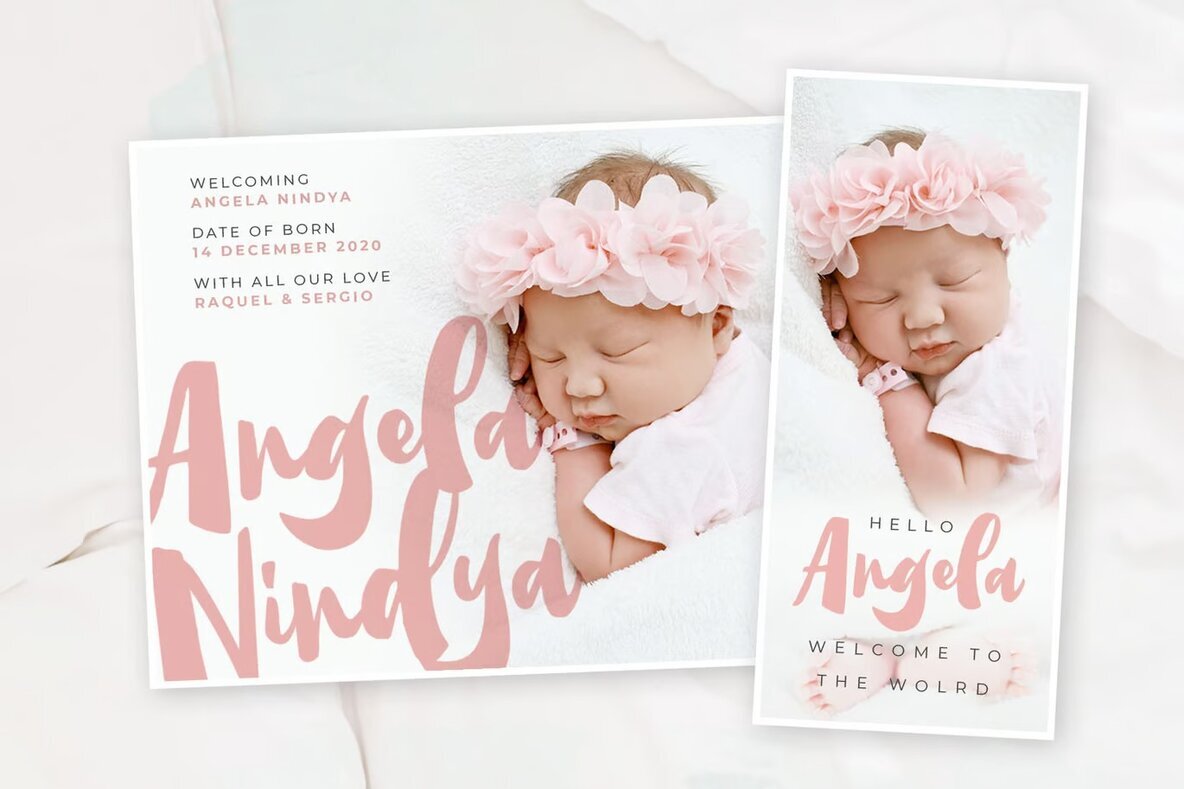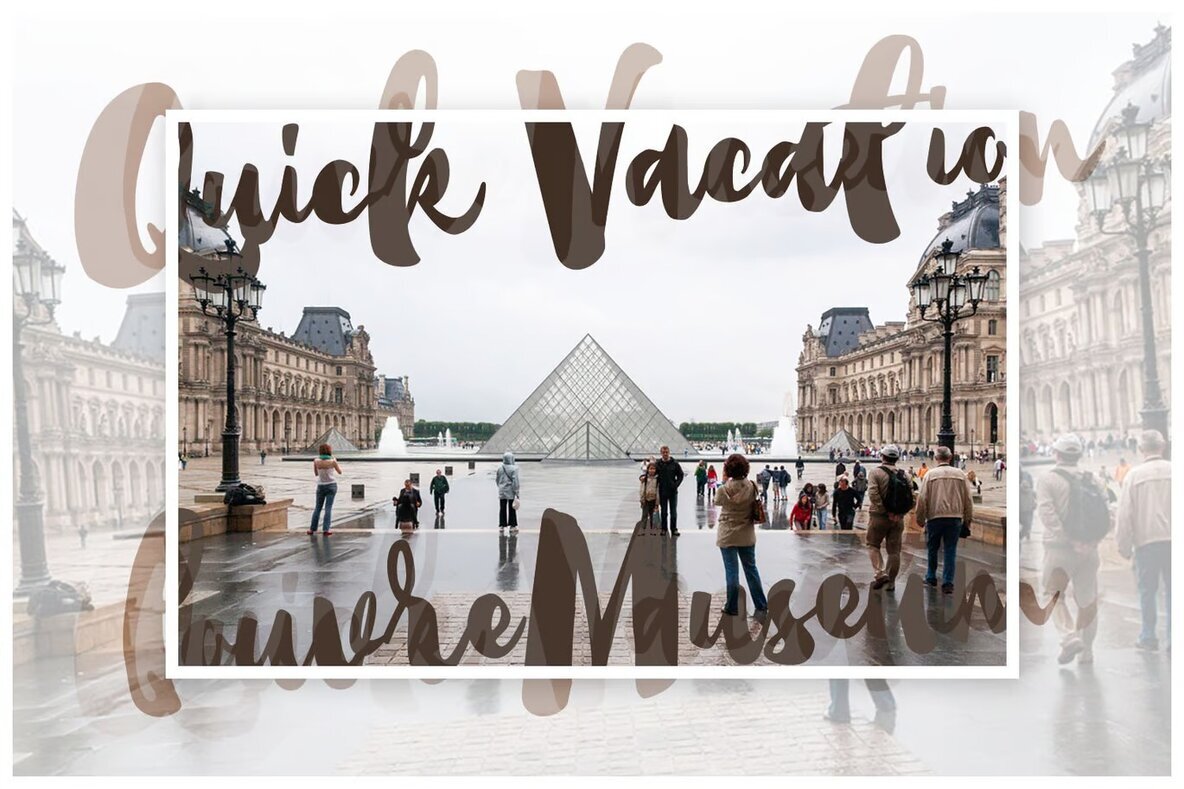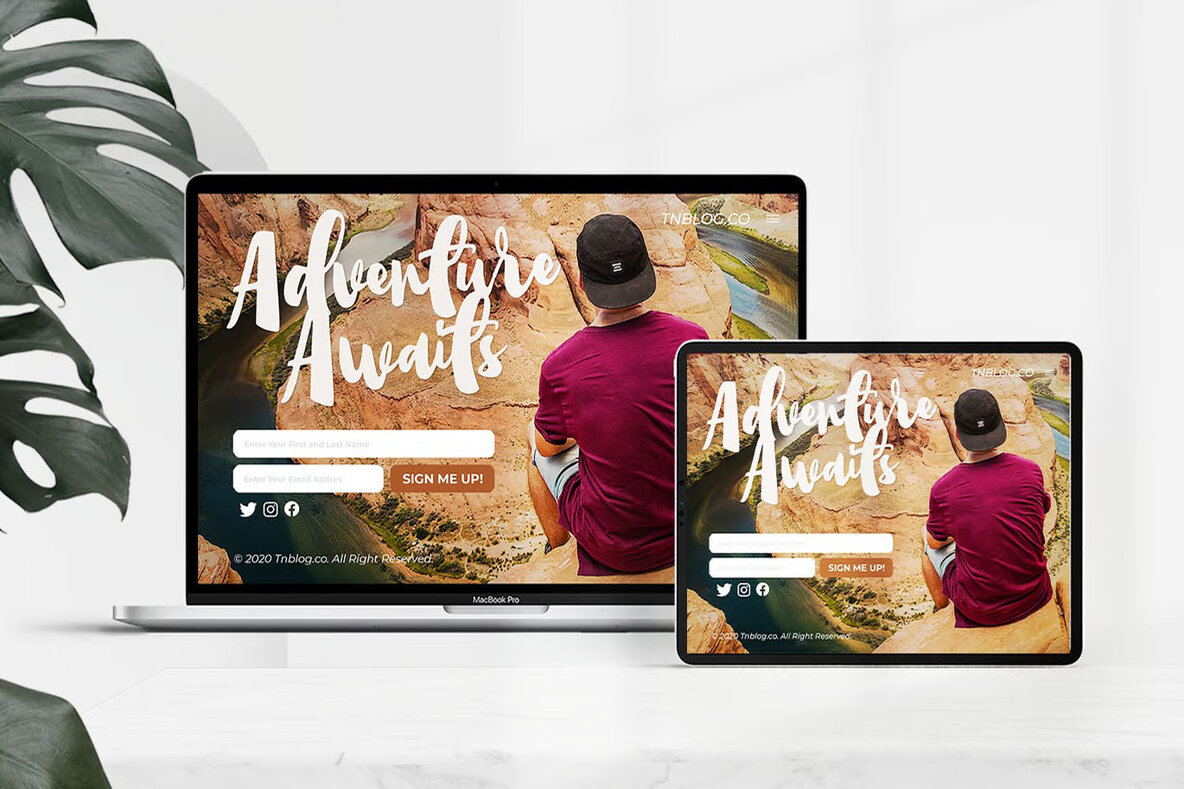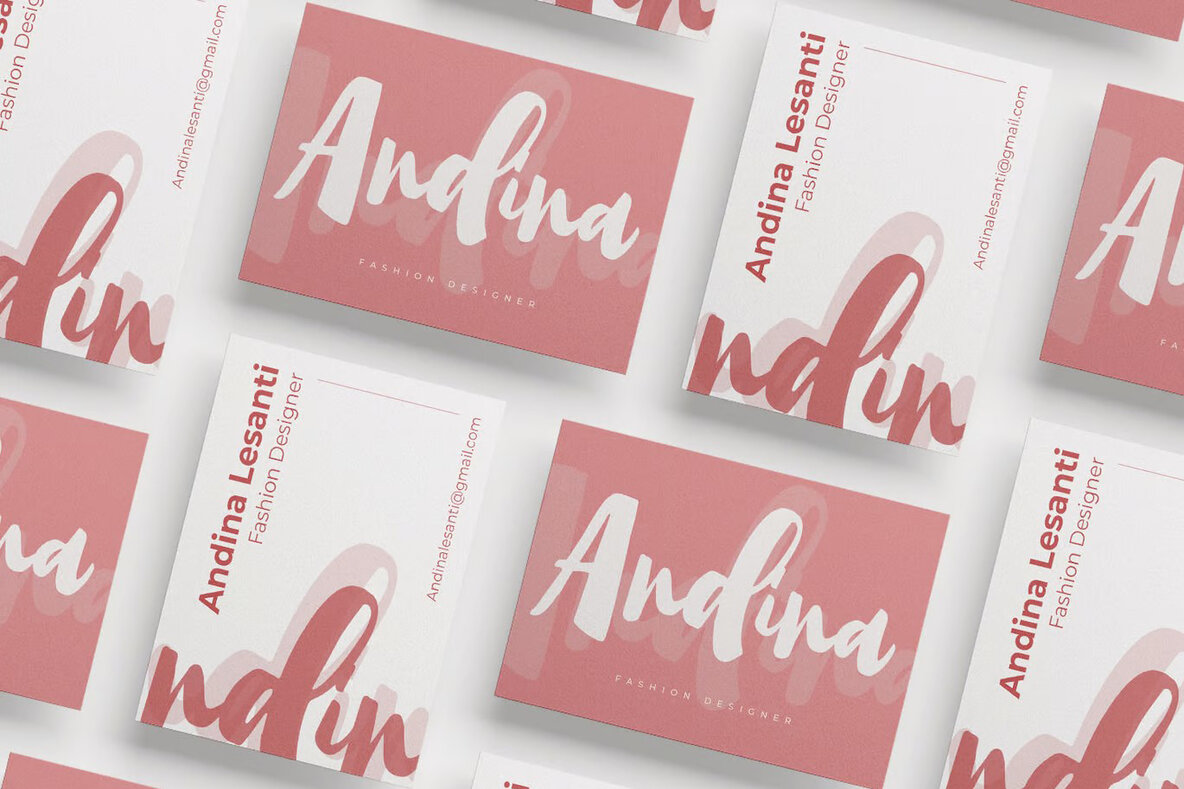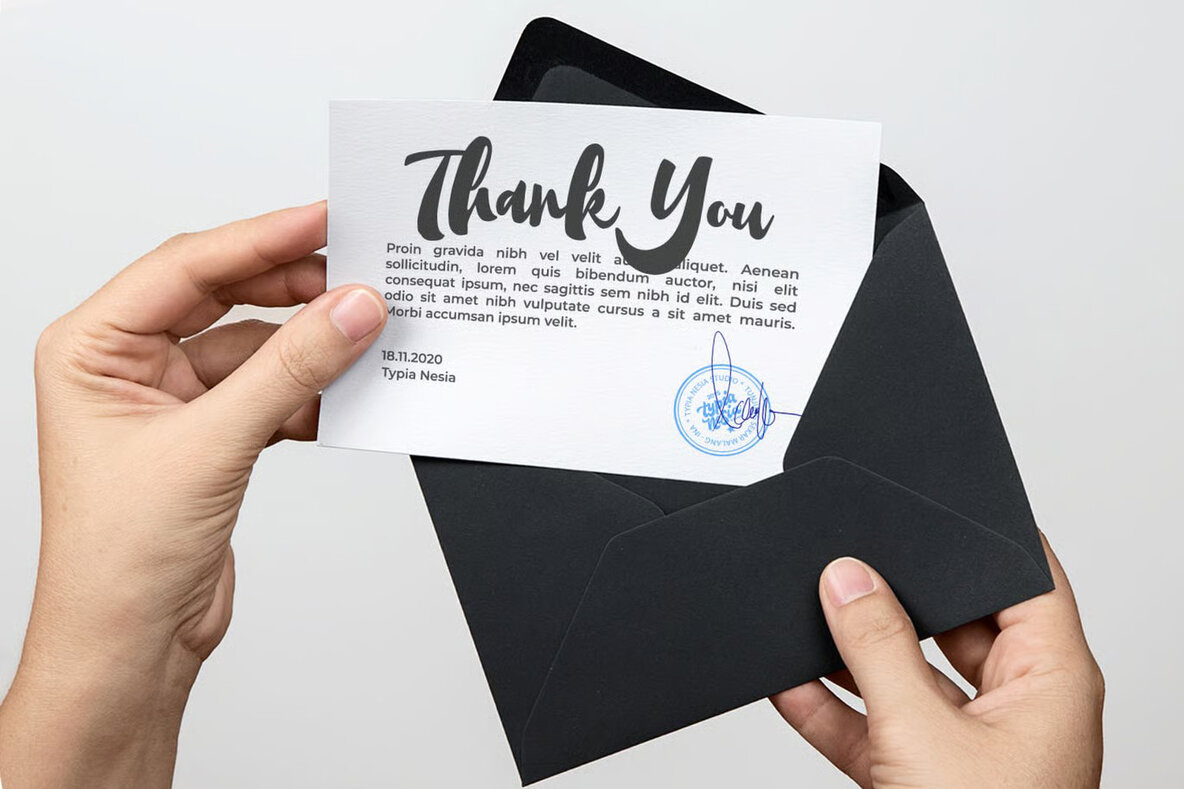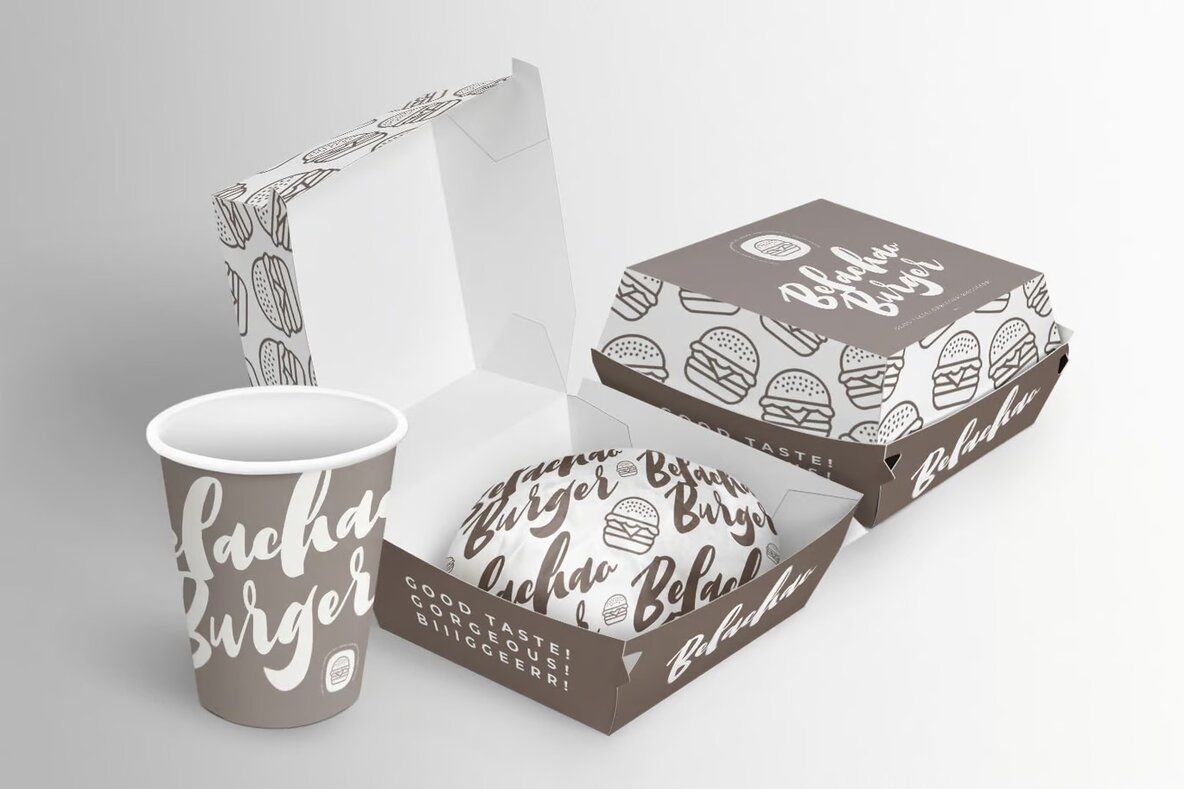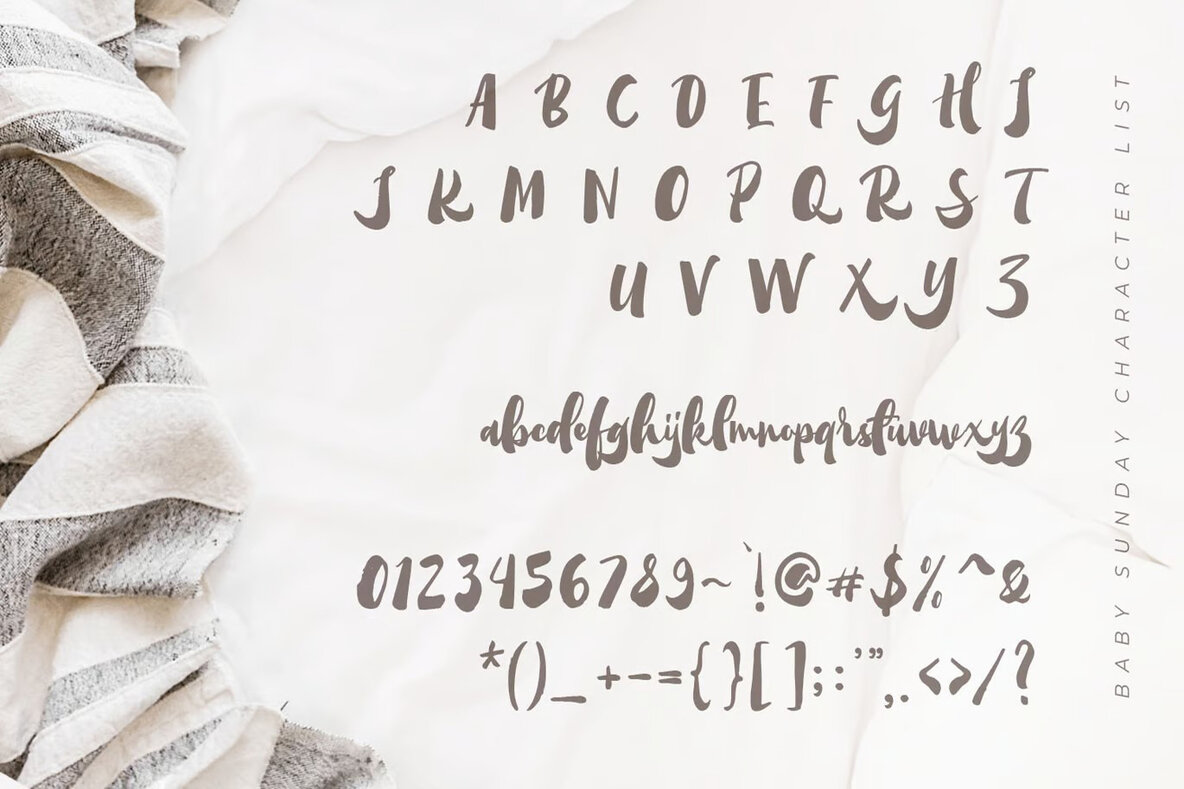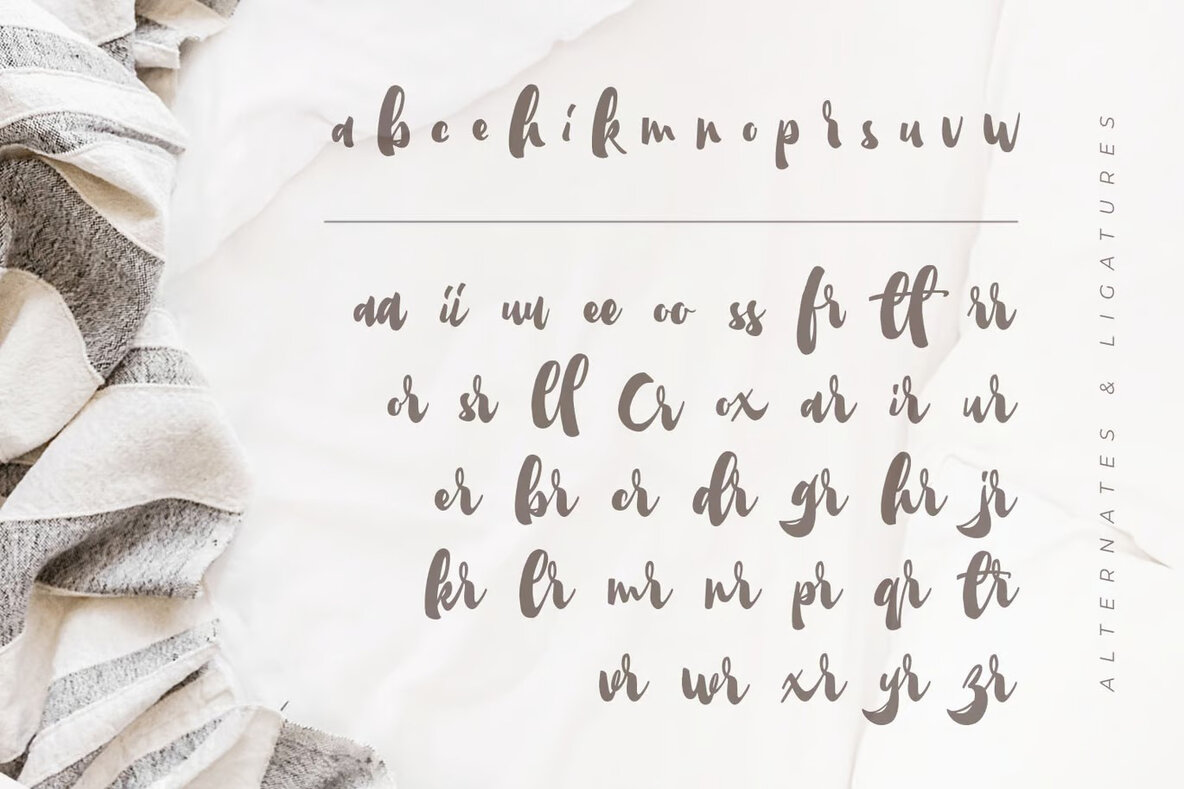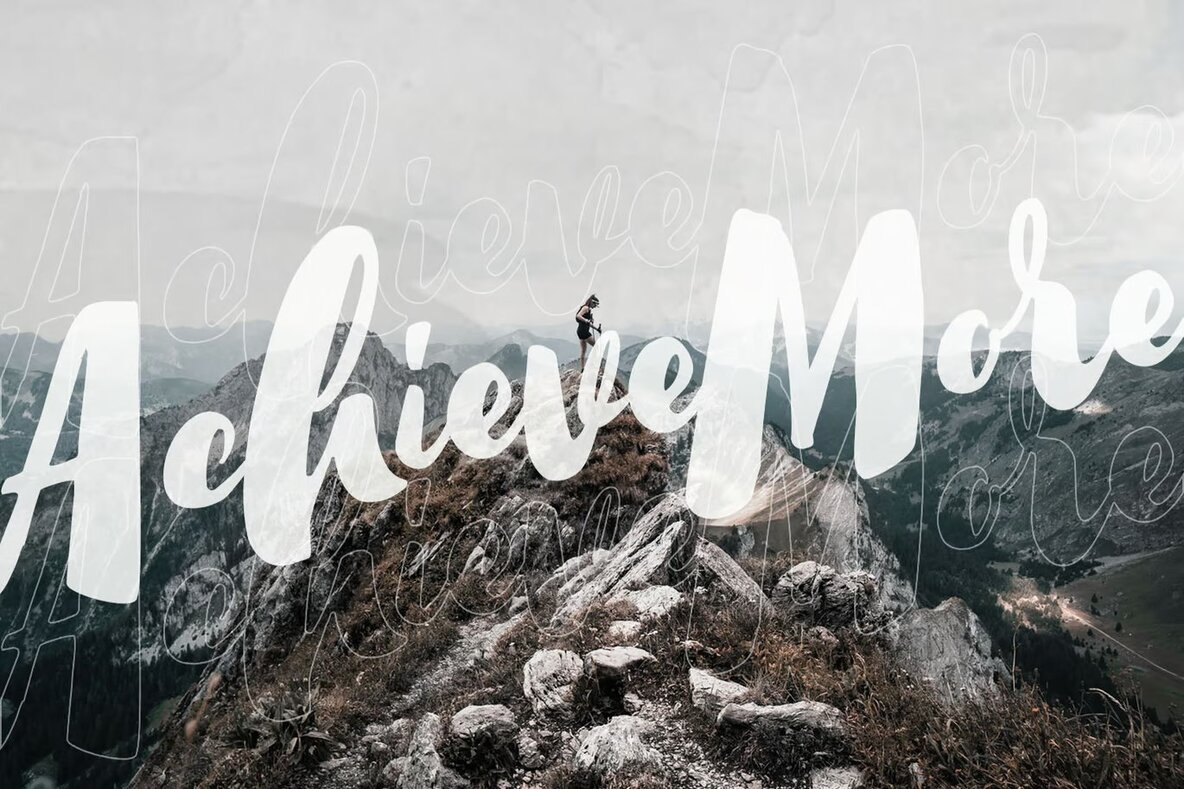
Baby Sunday Font
Baby Sunday Regular
Baby Sunday is a charming calligraphy font that brings a delightful touch to your design projects. With its unique flow and smooth calligraphy style, this font is ideal for a variety of themes, including wedding designs, social media graphics, branding materials, invitations, and greeting cards. The font features ligatures and alternates, allowing you to craft intricate and beautiful calligraphic designs.
Baby Sunday makes it easy to add a personal touch to your projects through its versatile design elements. Its elegance is perfect for bloggers and designers looking to enhance their visuals with a classic yet approachable font. Whether you're creating for a baby shower or any other special occasion, Baby Sunday provides the creative freedom to produce stunning artwork. Enjoy utilizing this script font to its fullest potential in your next design endeavor.